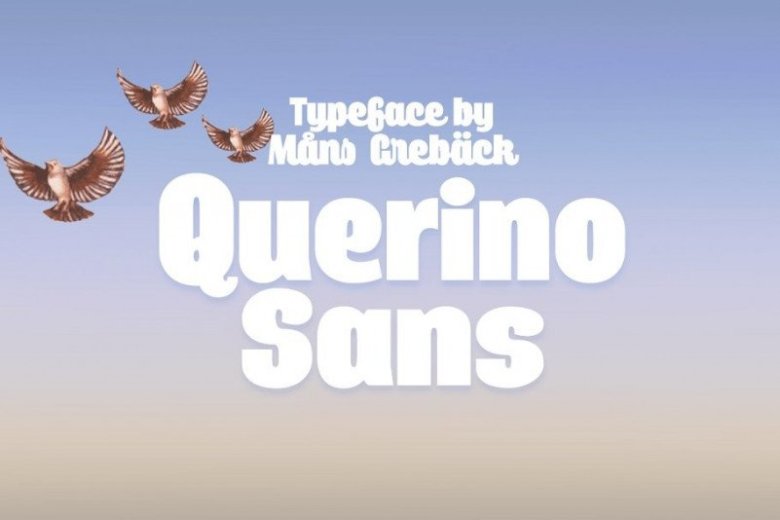
Querino Sans Serif Font
Befonts very pleased to introduce a new sans-serif font, It’s influenced by the modern and elegant style sans serif typefaces that are popular in high class editorial design. Suitable for use in title design. Querino Font is designed and shared by Mans Greback.
It’s an extra-bold sans-serif font, created by Måns Grebäck during 2018 and 2019. It comes as a regular, upright version and as italic. Also check out its sister typeface Querino Script. It can be perfect for presentations, magazines, notices, titles, magazine, web layouts, logos, invitations, headers, name card, branding and other any business related.